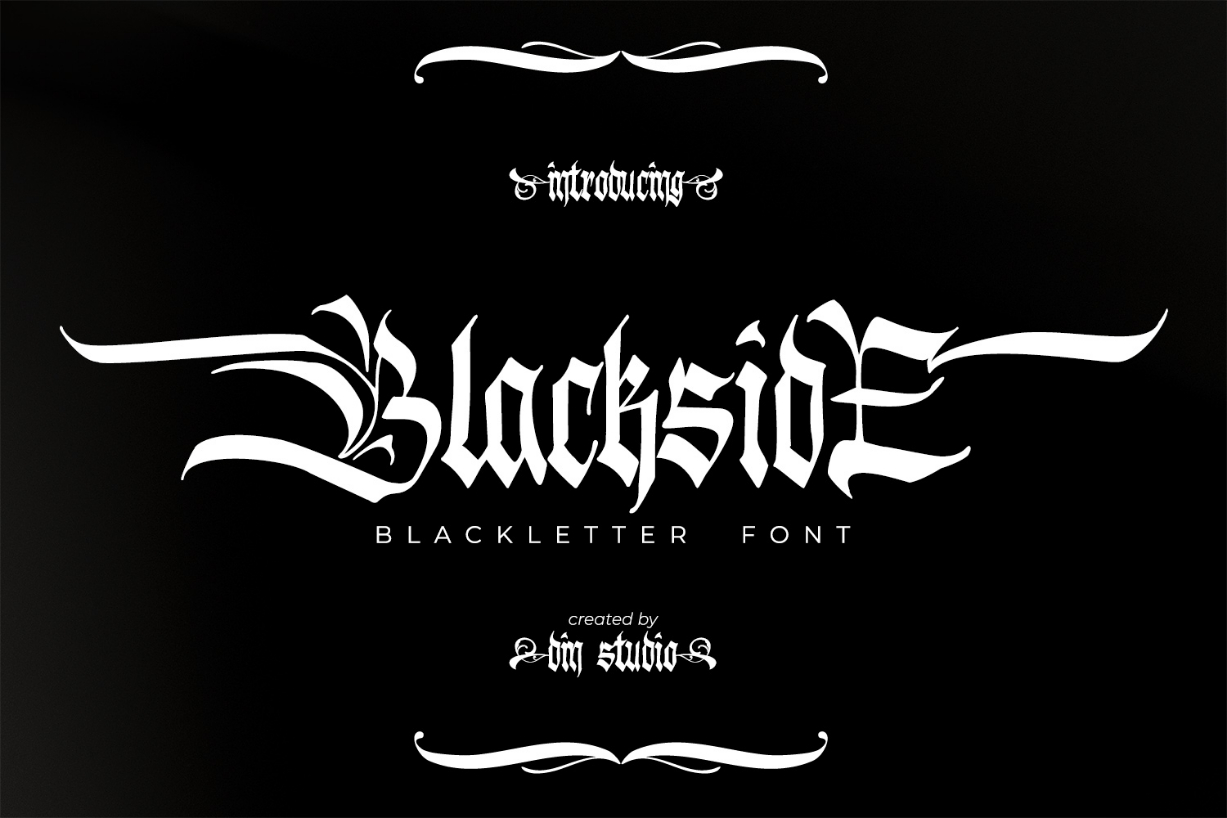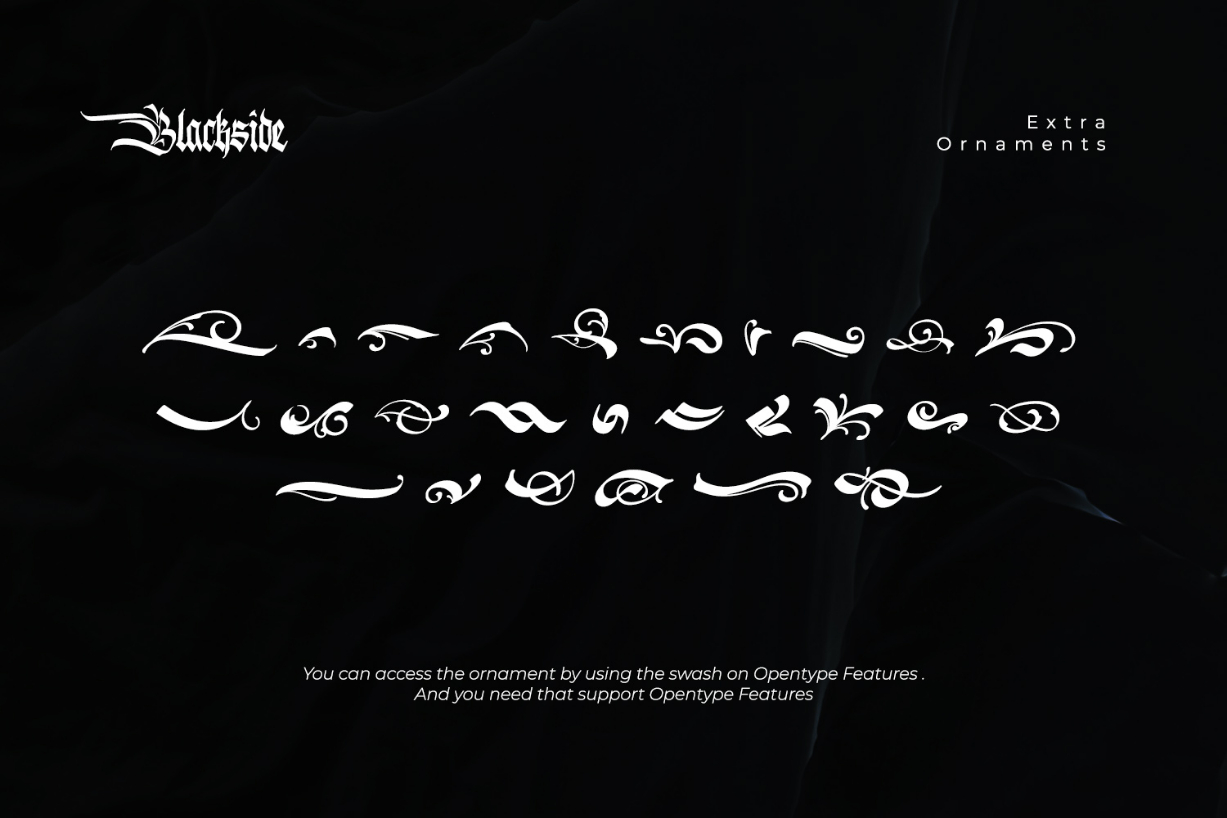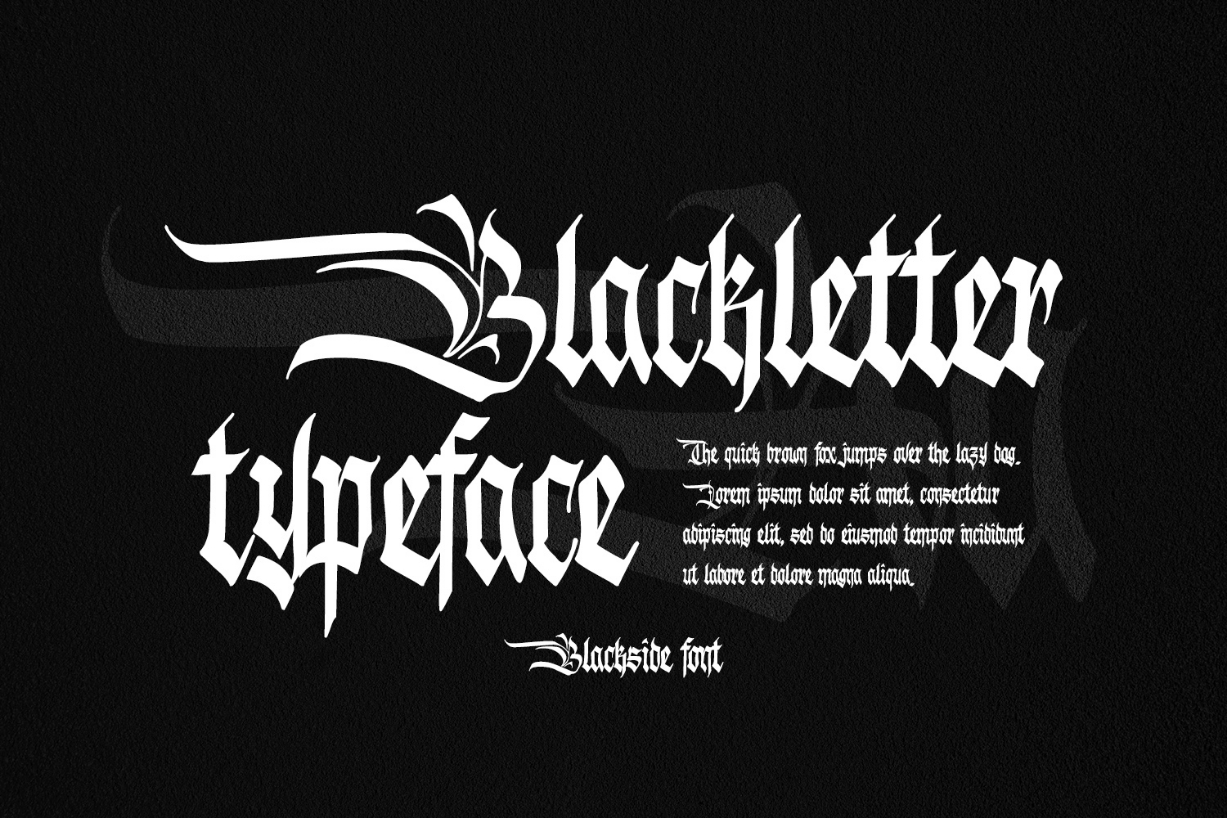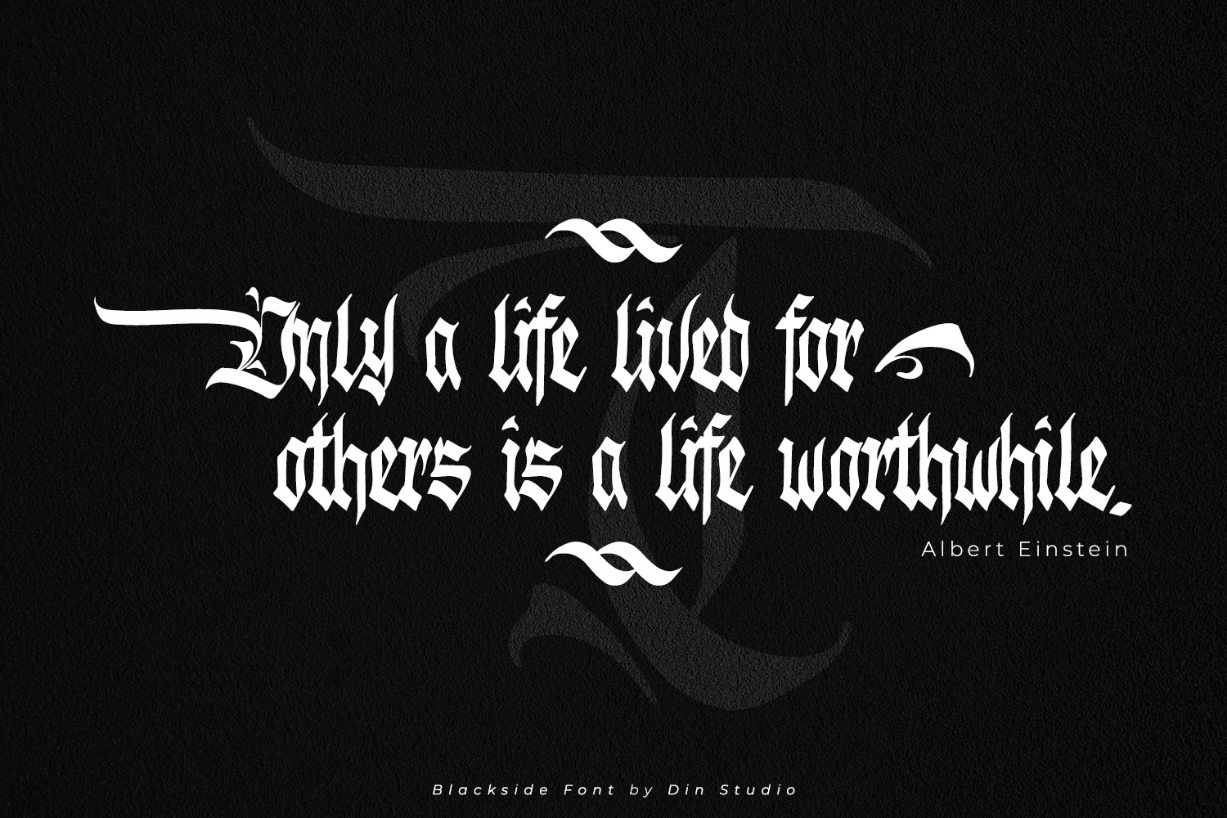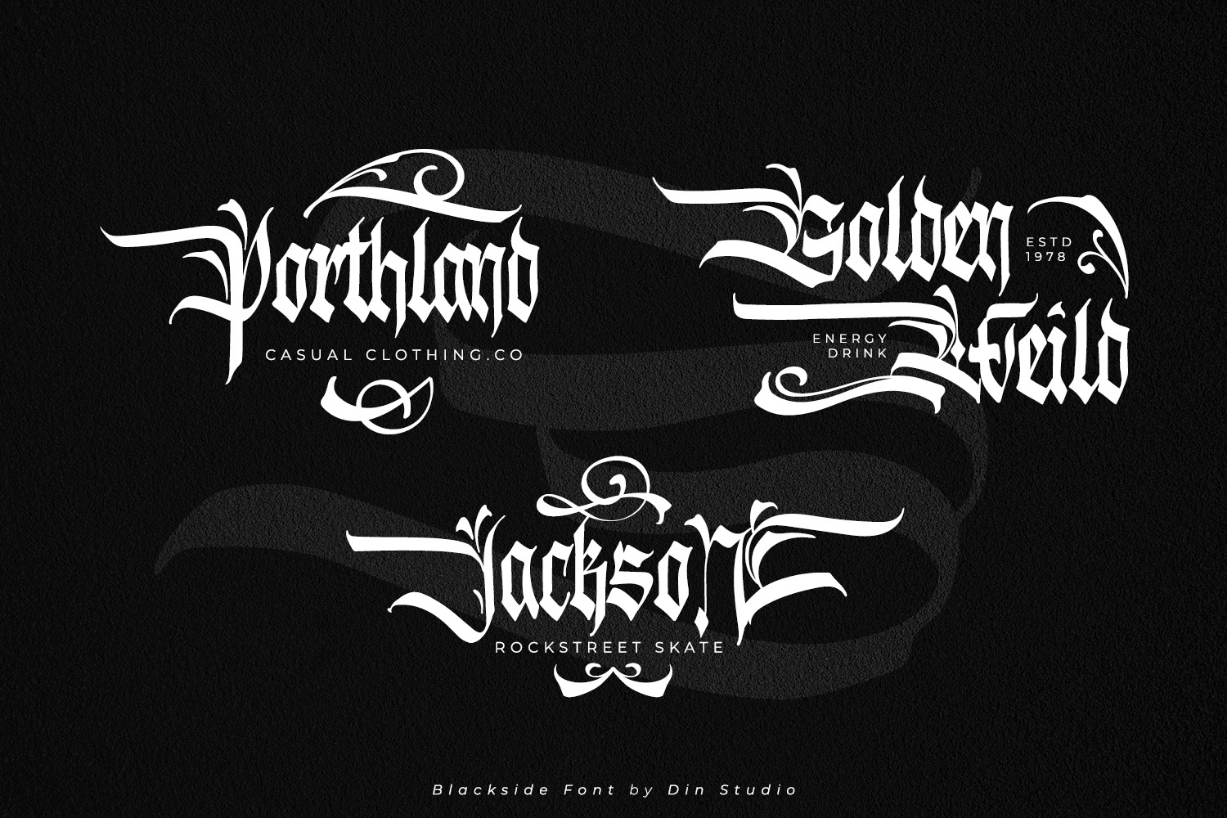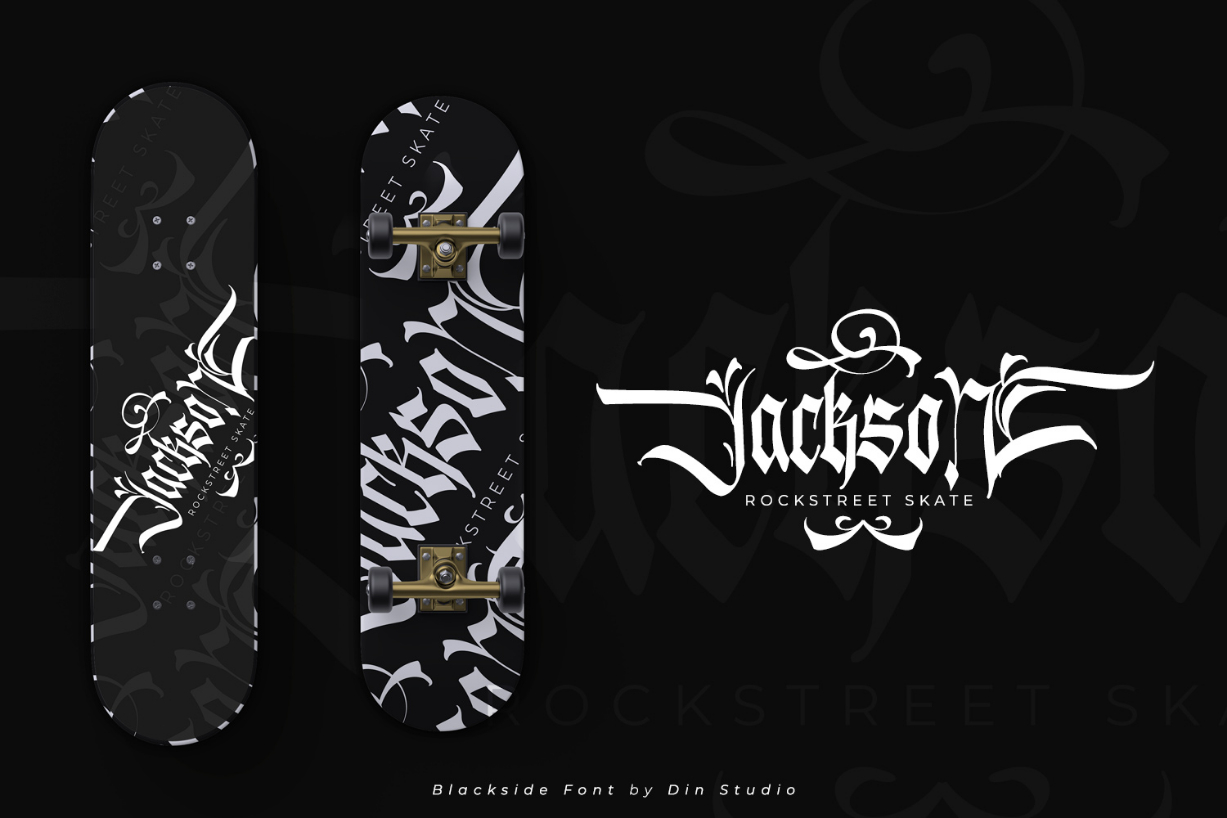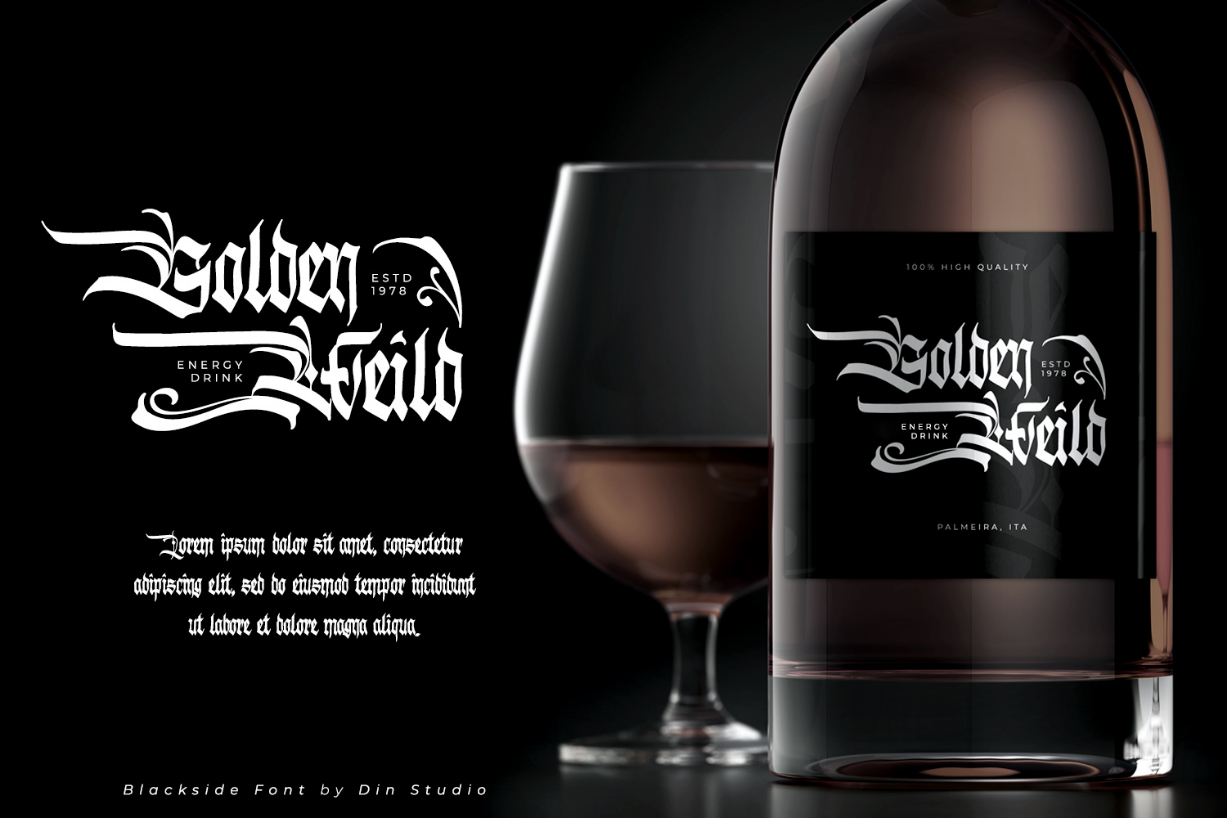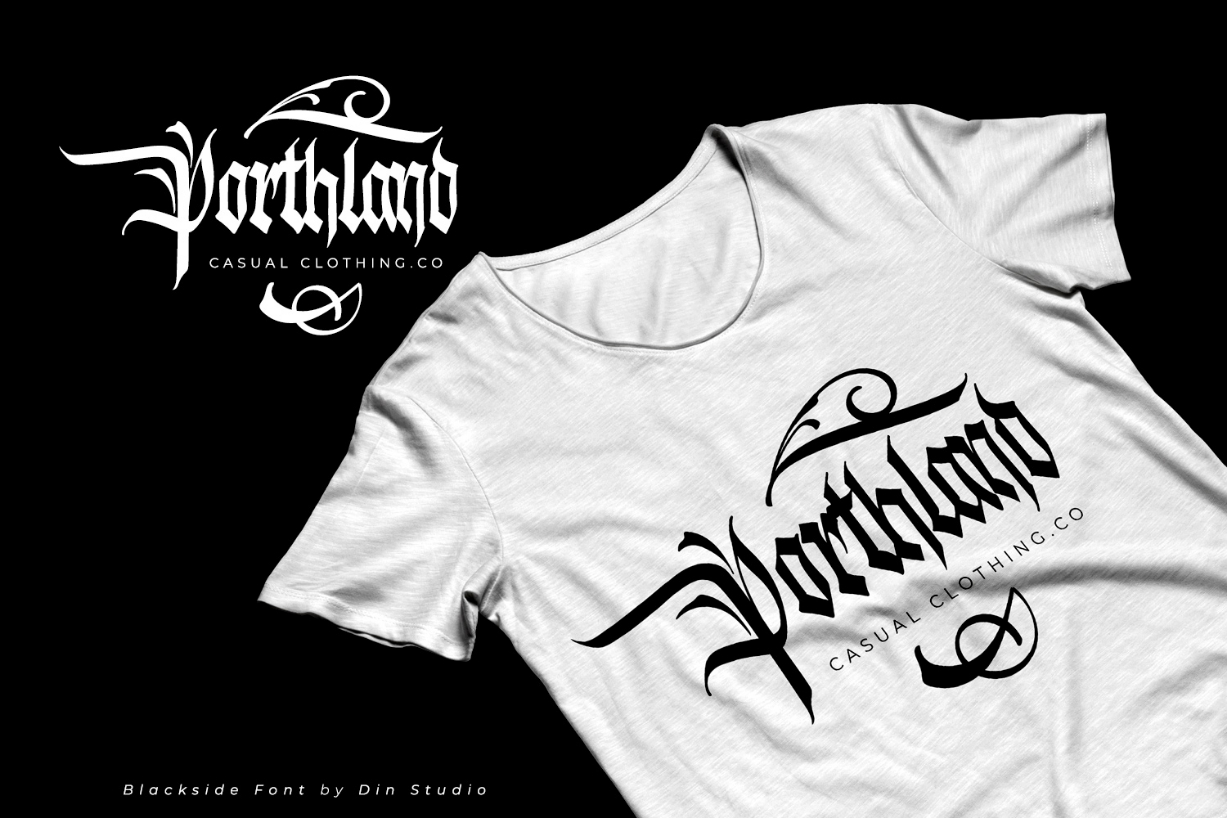
Blackside Font
About Blackside Font
Blackside is a bold and authentic blackletter font. The font is suitable for any branding project such as logos, t-shirt printing and much more.